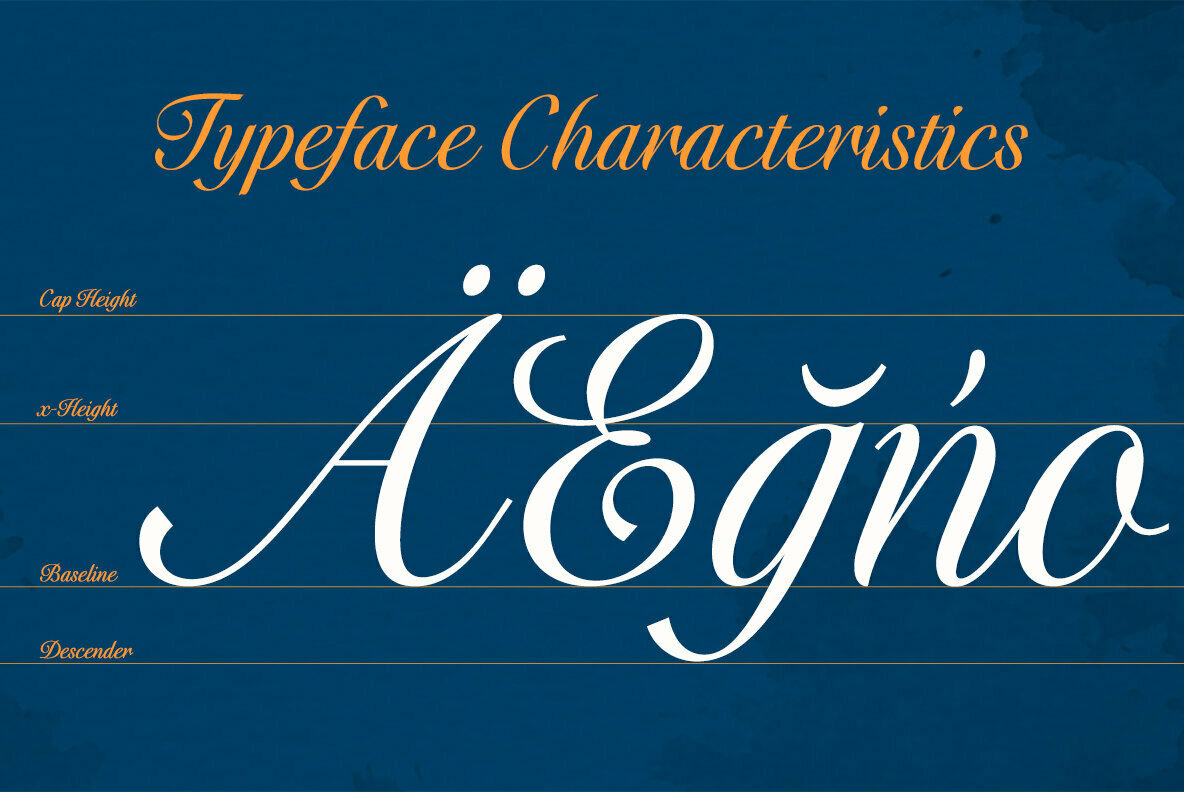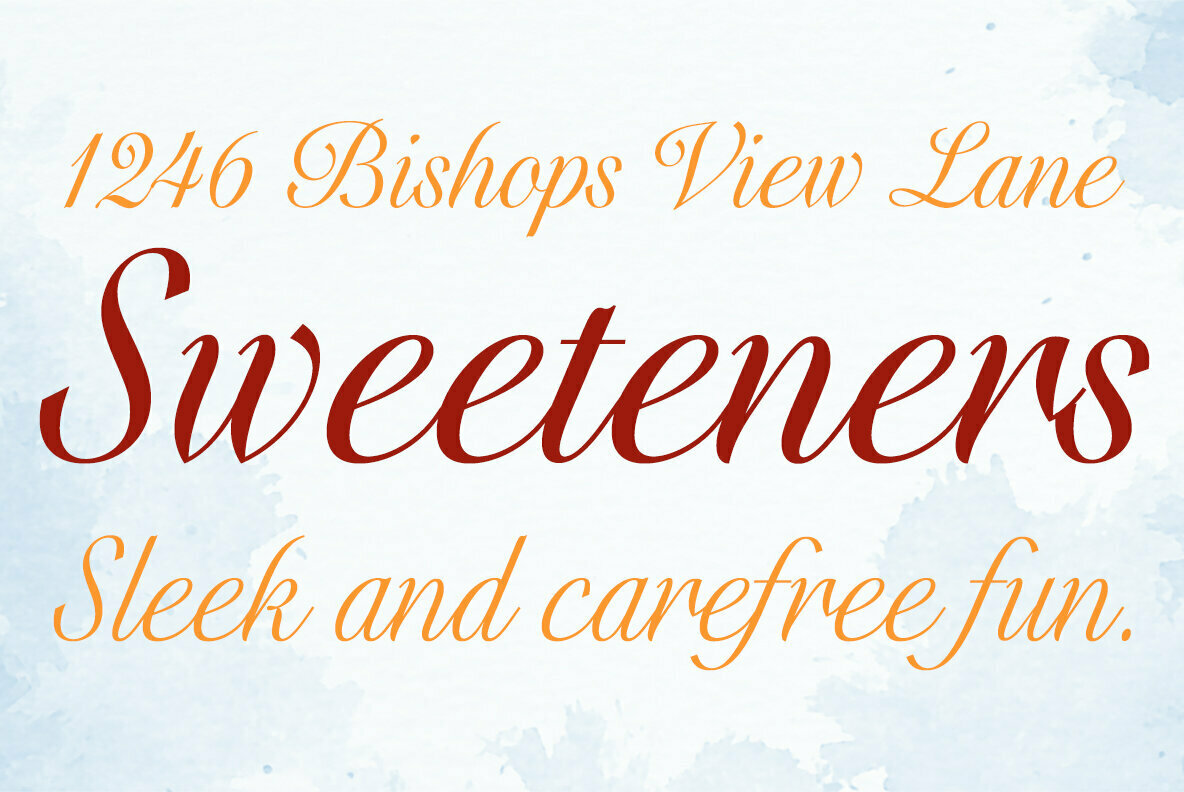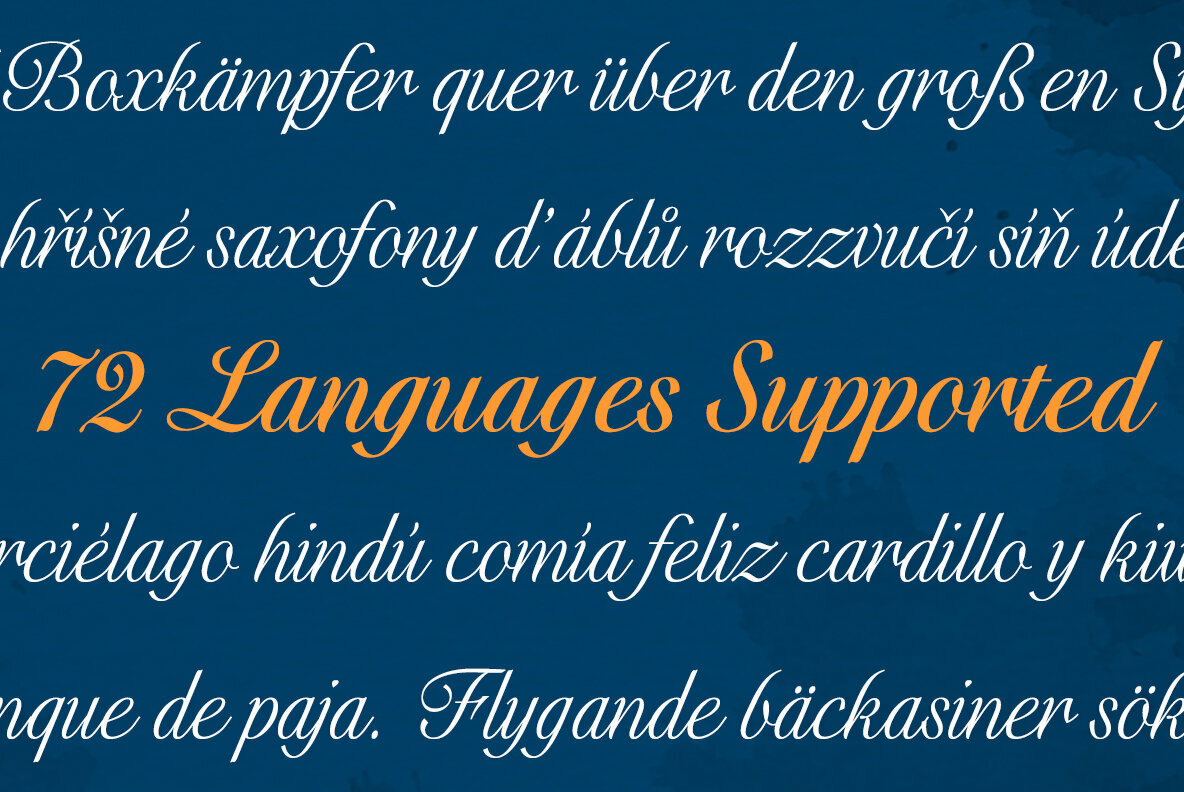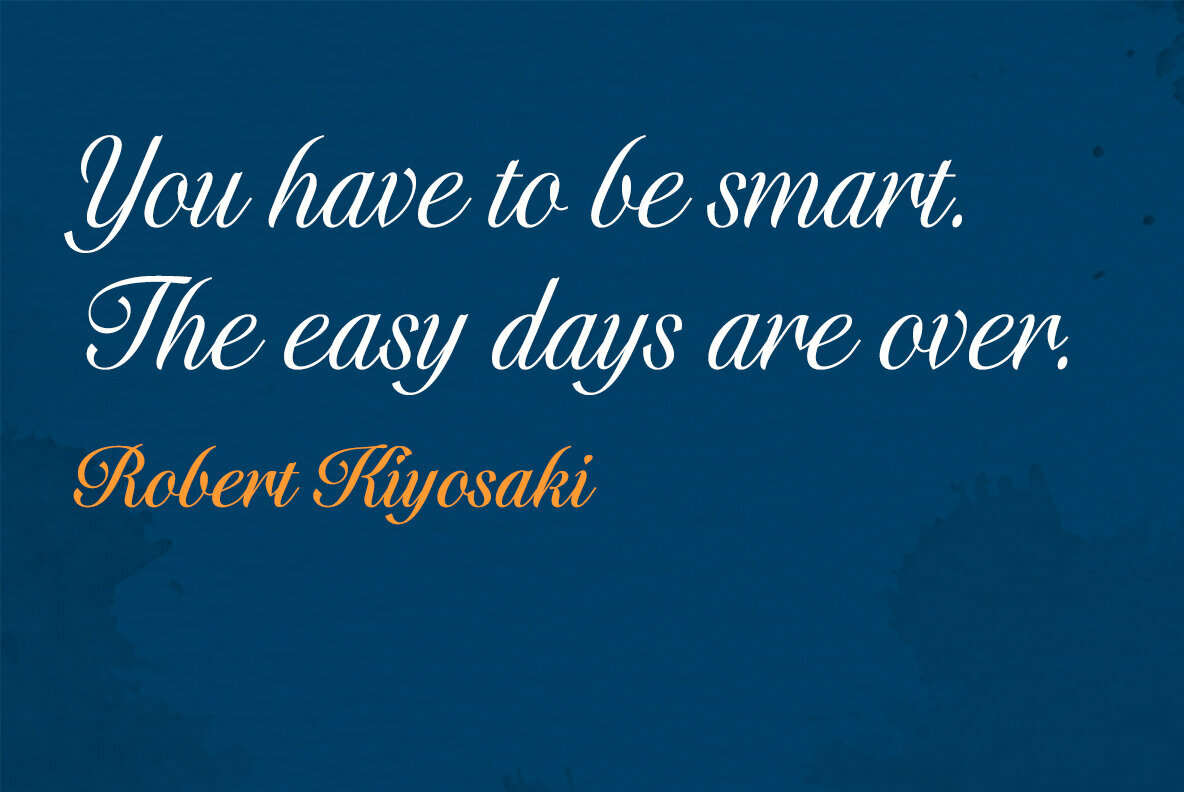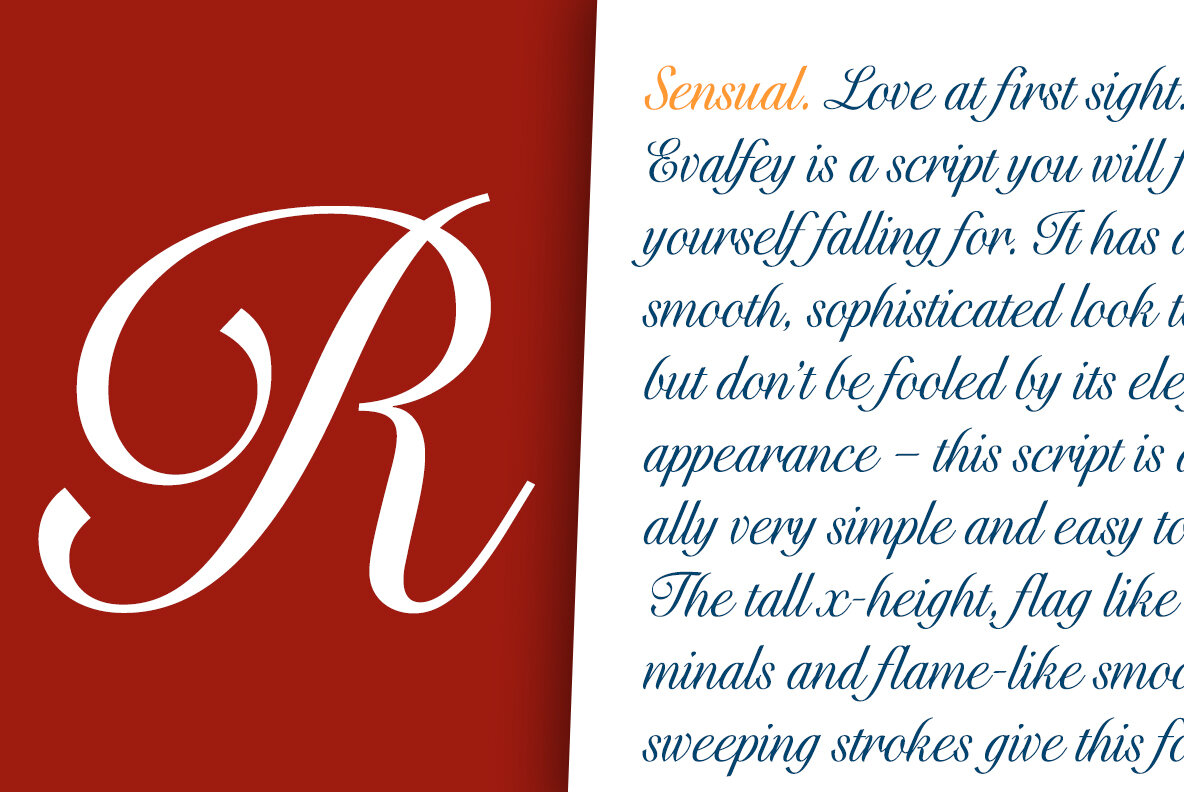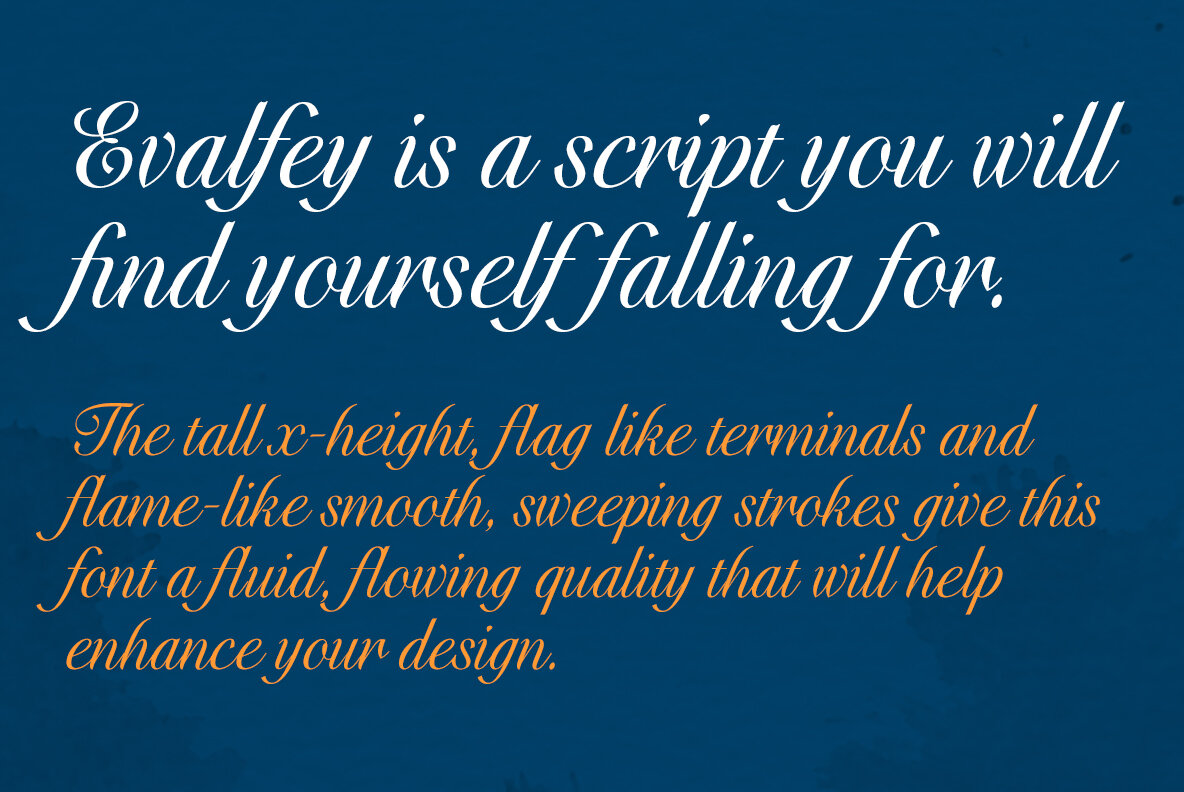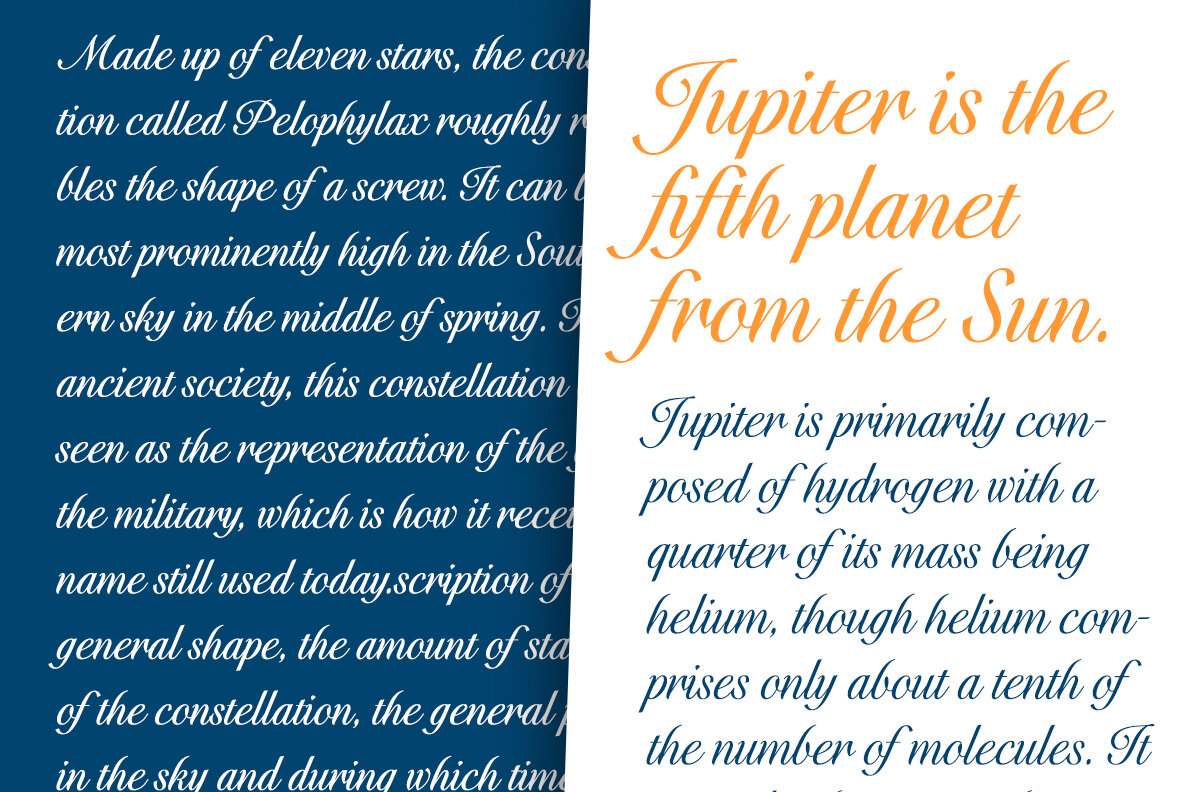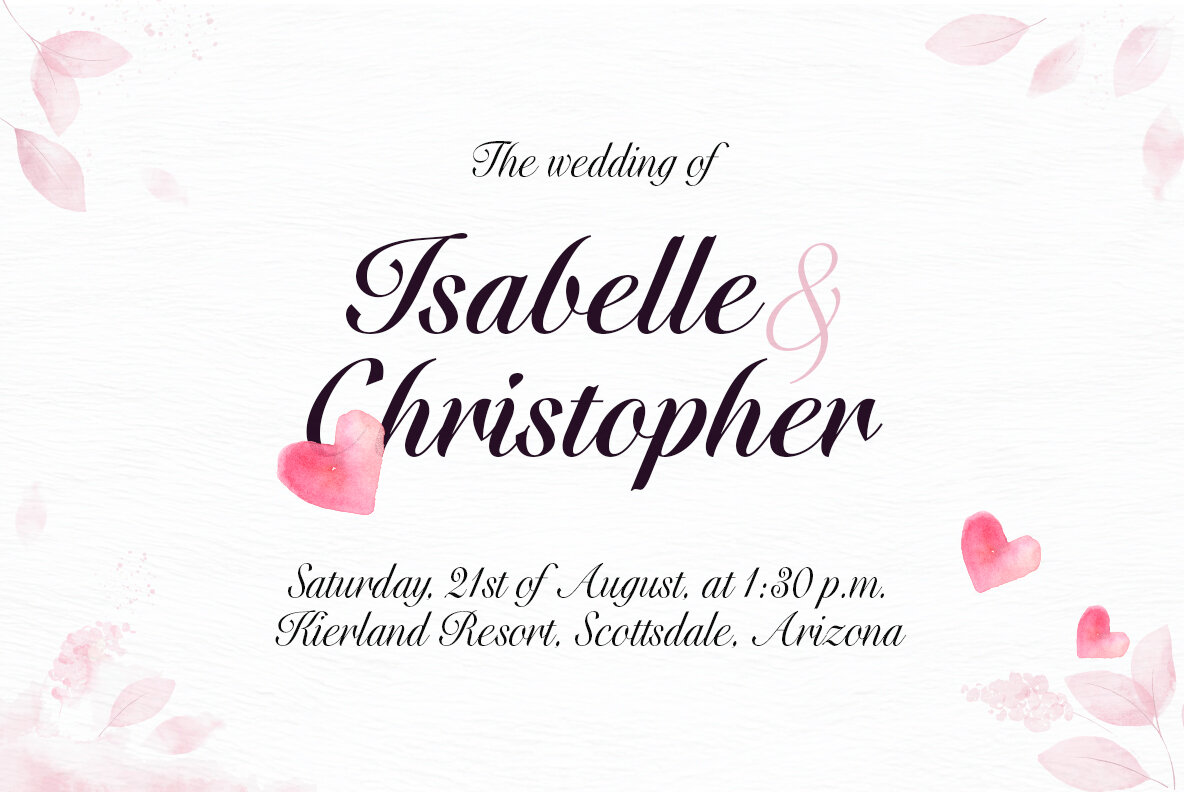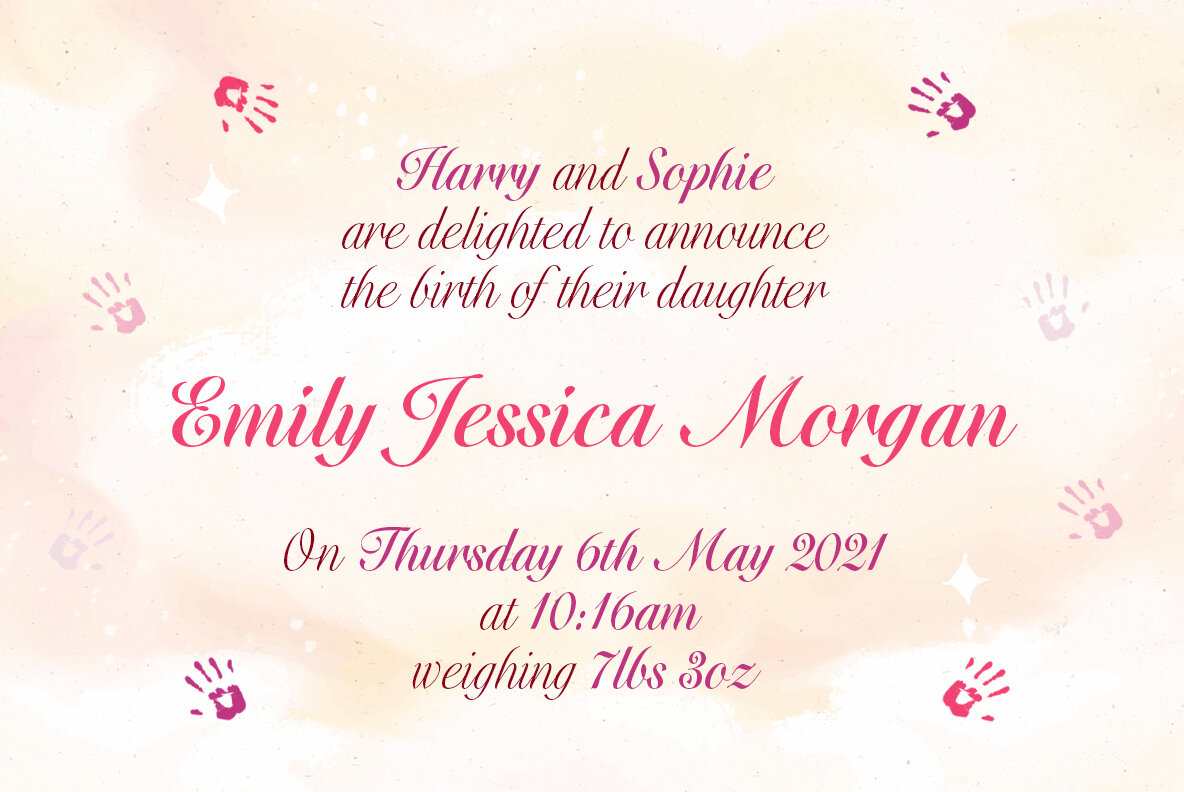
Evalfey Font
Love at first sight: Evalfey is a script you will find yourself falling for. It has a smooth, sophisticated look to it, but don't be fooled by its elegant appearance – this script is actually very simple and easy to use. The tall x-height, flag like terminals and flame-like smooth, sweeping strokes give this font a fluid, flowing quality that will help enhance your design.
Evalfey Script is a great font for a wedding invitation or similar. The elegant, brushed look and strong "nuptial" feel make this the perfect choice for wedding invitations, save-the-date cards, thank you notes, and more.
Evalfey is the perfect font for any wedding invitation or ceremony. Simple and elegant, Evalfey is a good choice for the wedding that likes to stand out from the crowd. The tall x height, graceful flag-like terminals, and wavy sweeping strokes give this font a regal appeal.
Evalfey is a perfect combination of elegance and simplicity for your wedding invitation, announcement card or other special document.